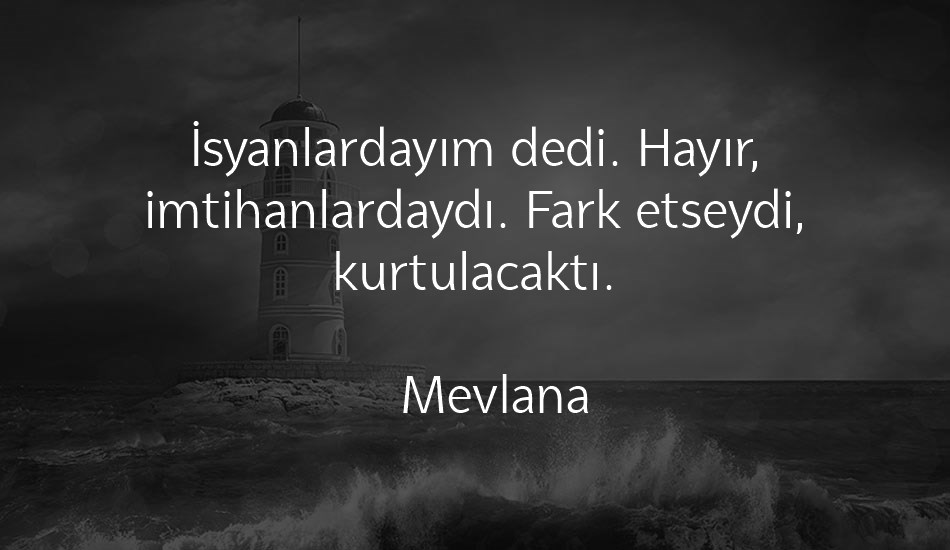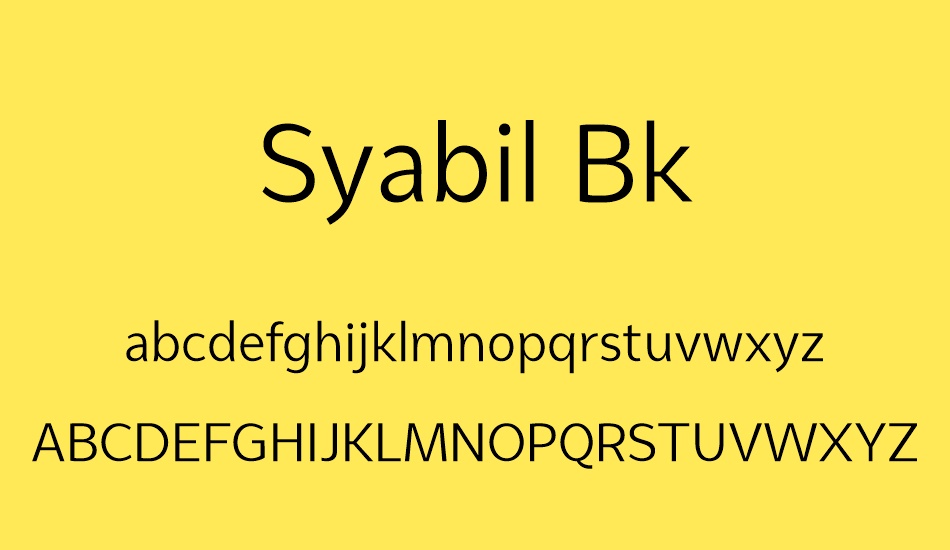
Syabil font
Syabil
Designed by Eko Bimantara, Syabil is a sans serif font that crafted with the intention to present a clean, legible, multipurpose font that easy to read. This font consist of 9 weight with each paired by italic, contain Latin Plus language support with more than 11.700 glyphs in all weight with some opentype feature such as: Small caps, standard ligature, fraction, variation of figures, numerator, denominator, sups and subscript.